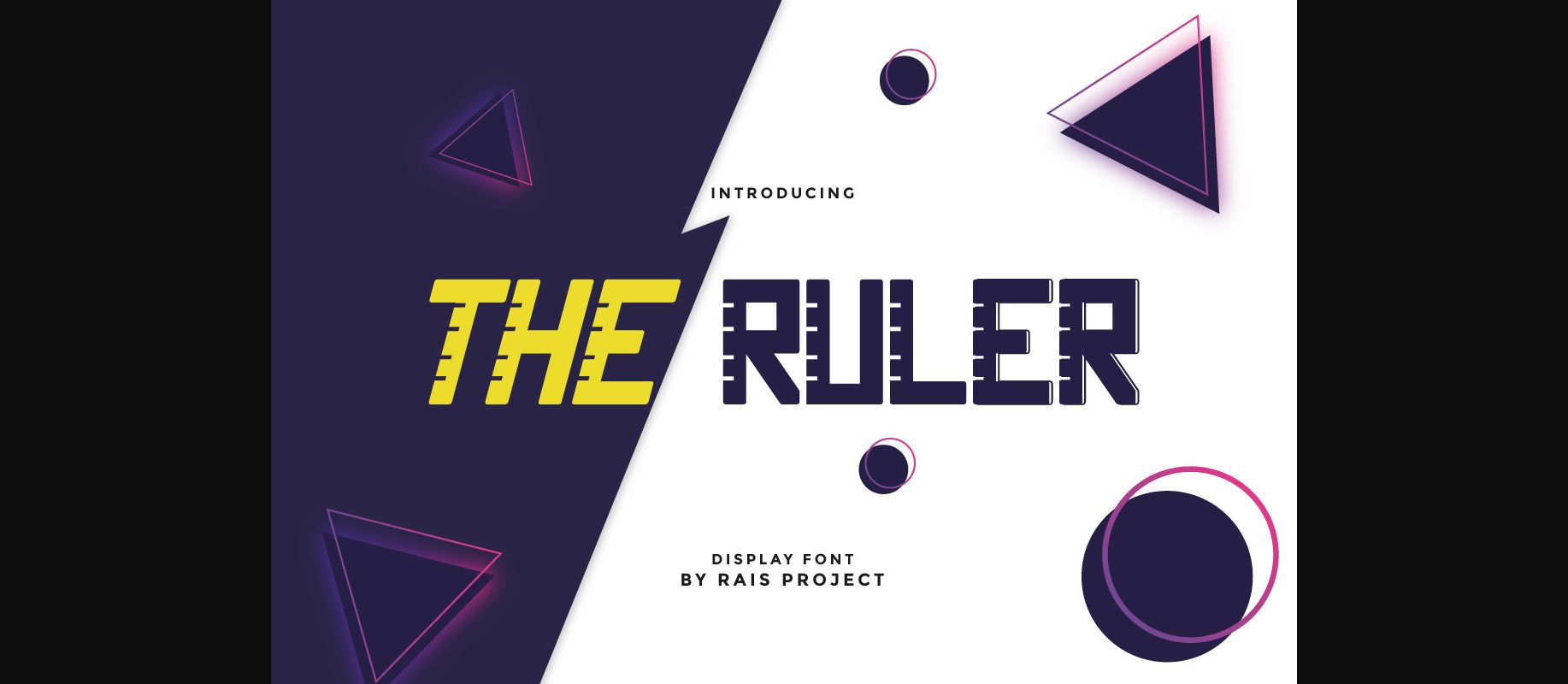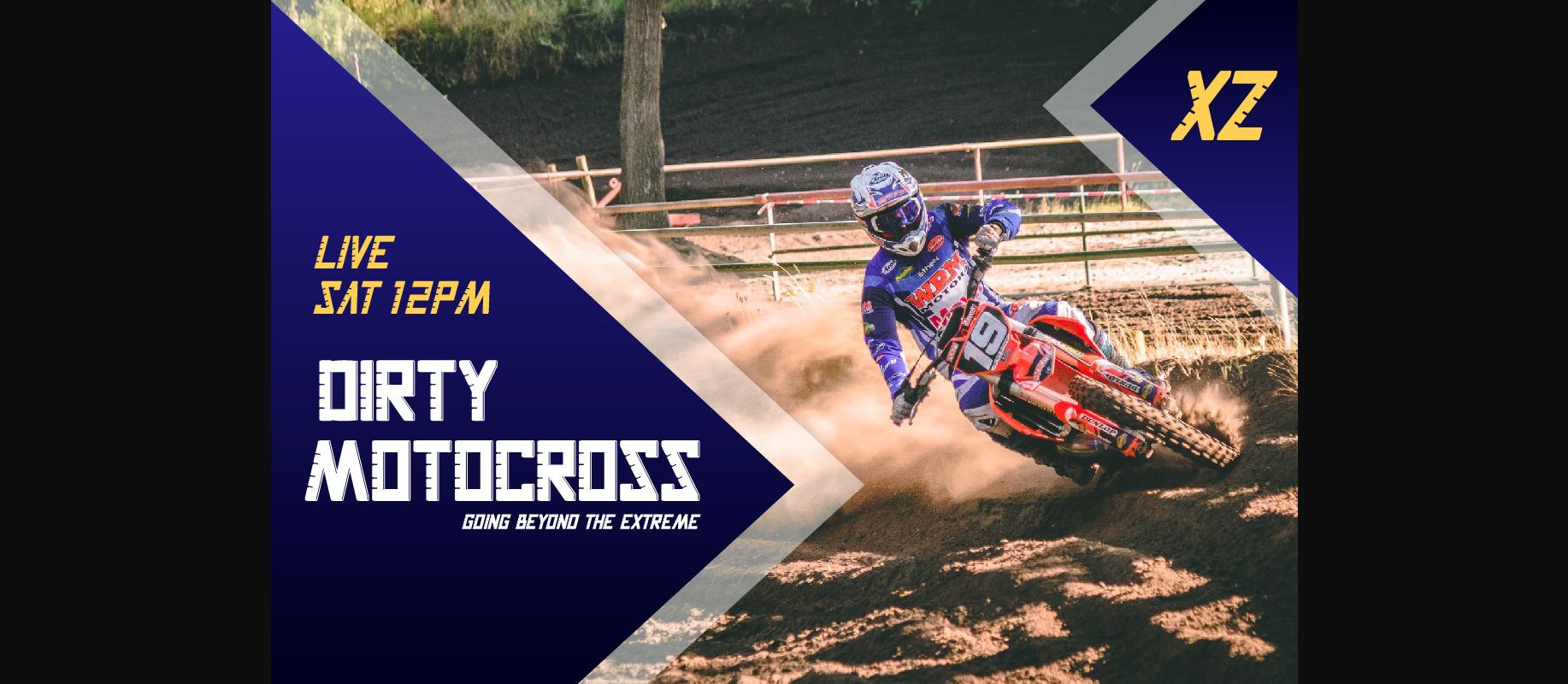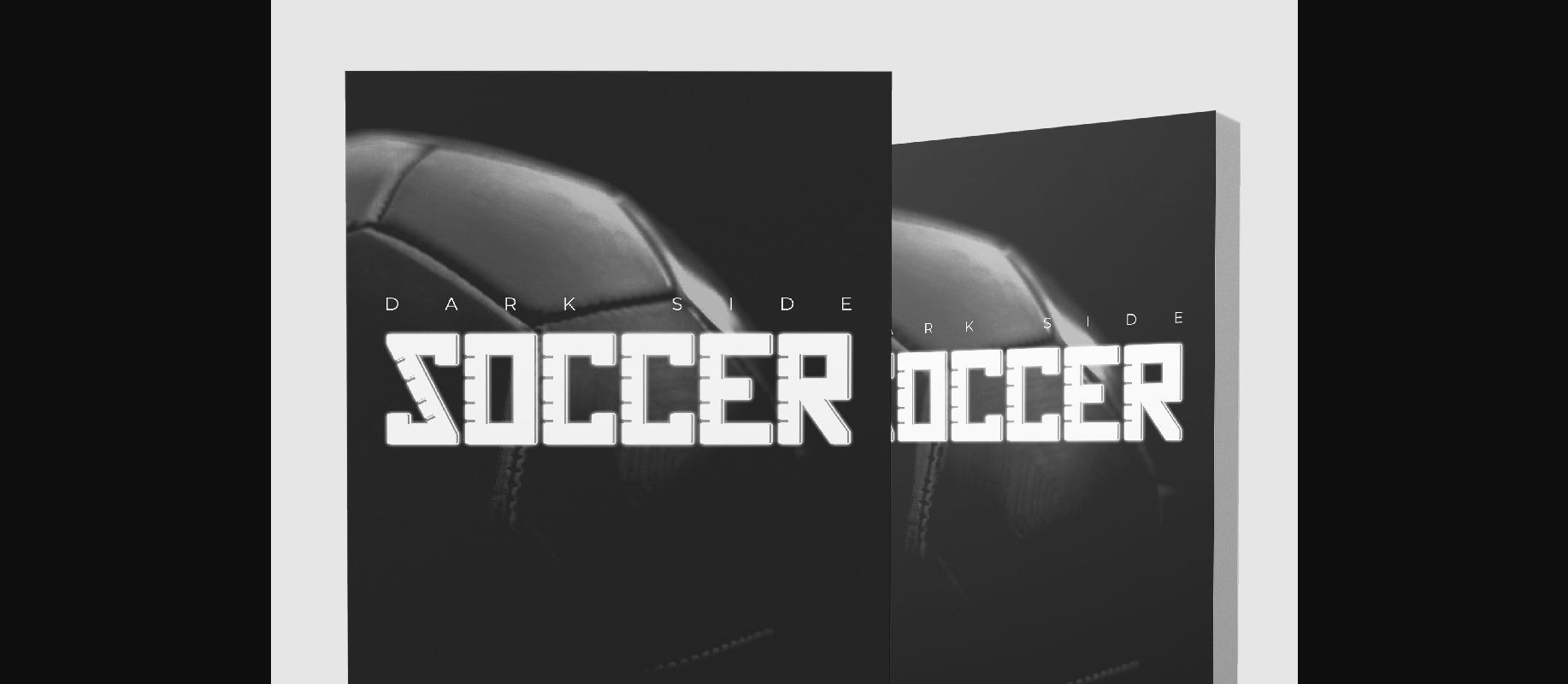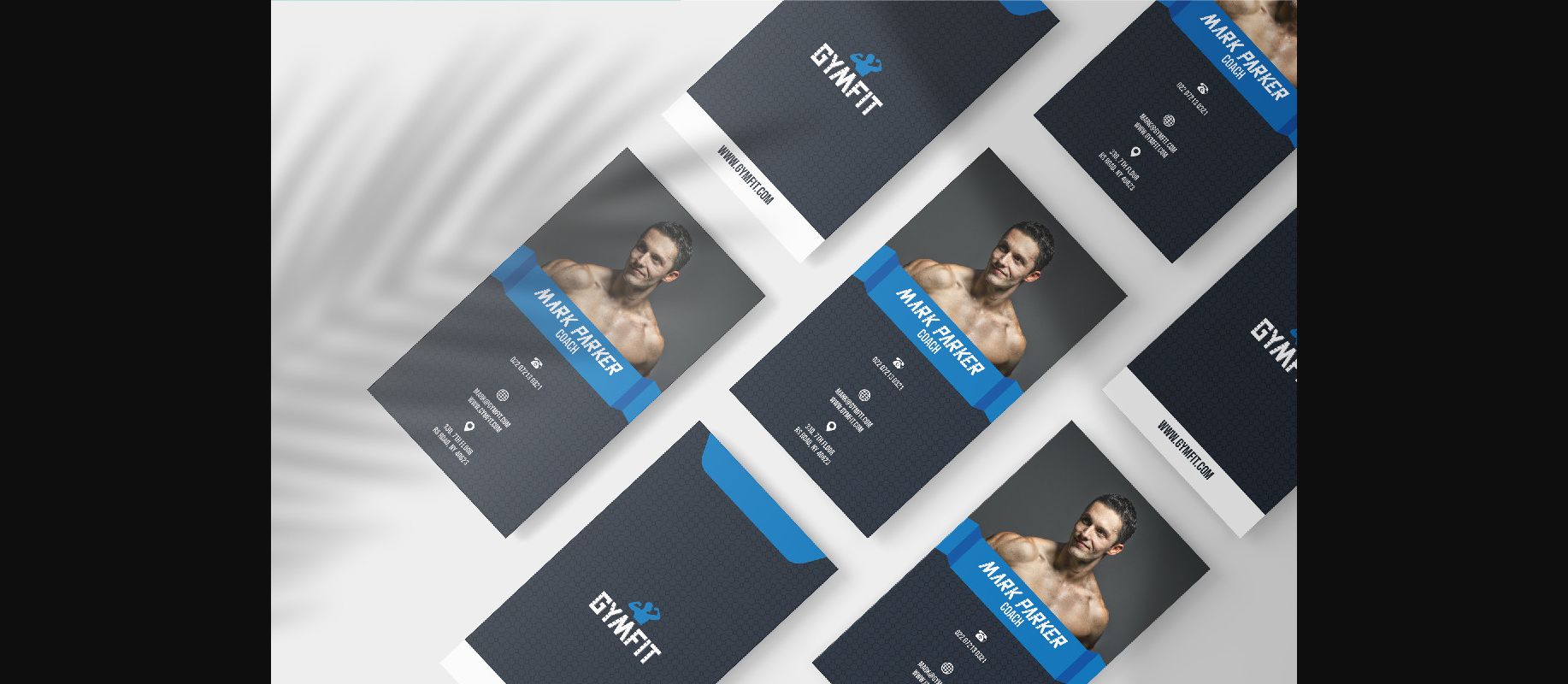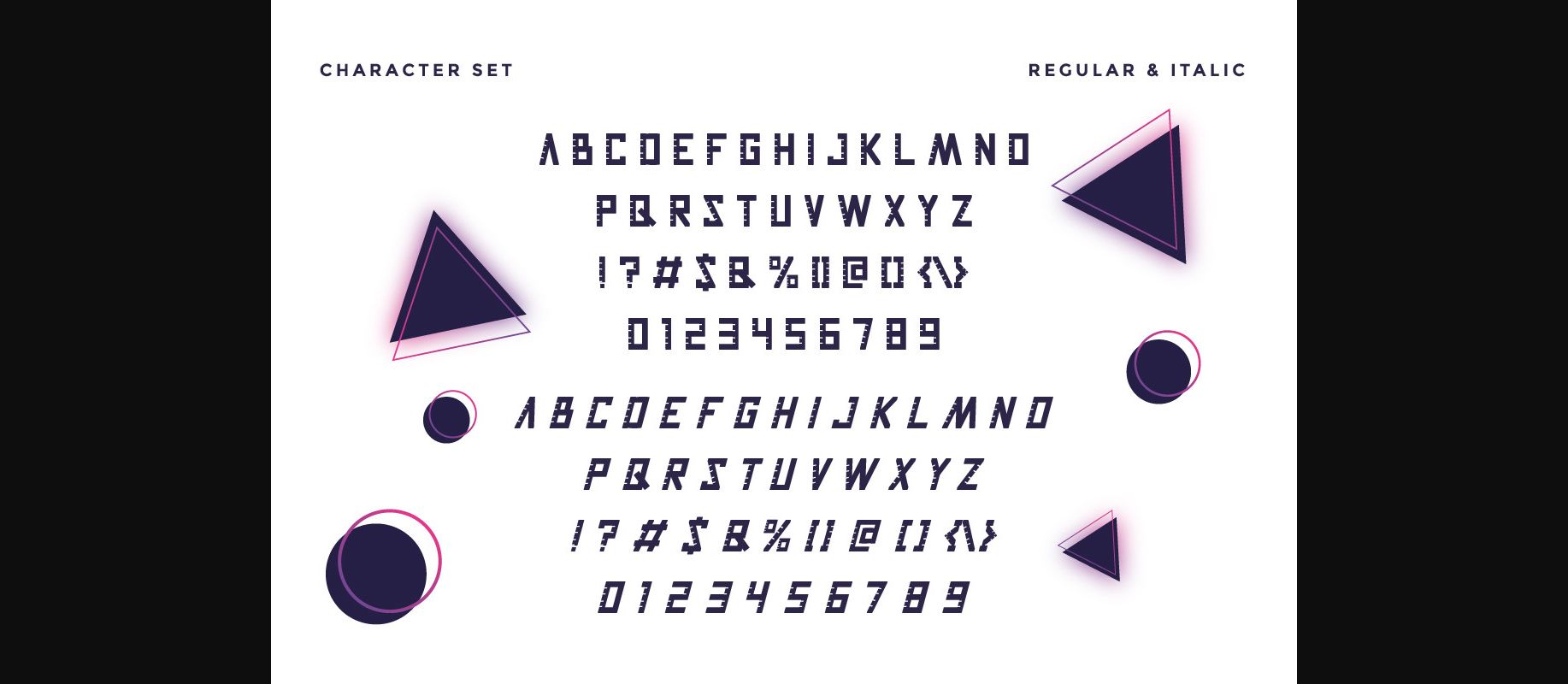
About The Ruler Font
The Ruler is a cool decorative font, featuring characters that resemble rulers. Whether you use it for cartoon related designs, children games or just any creation that requires a lovely touch, this font will be an amazing choice.